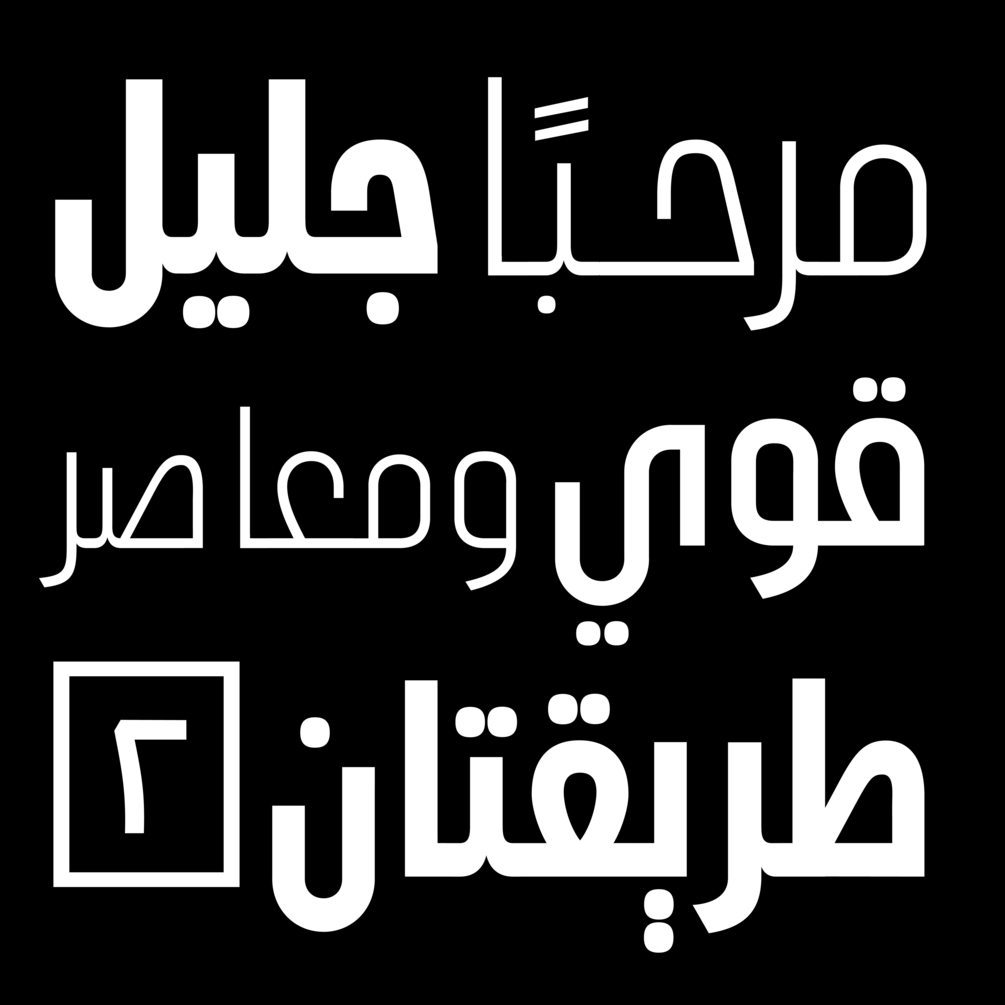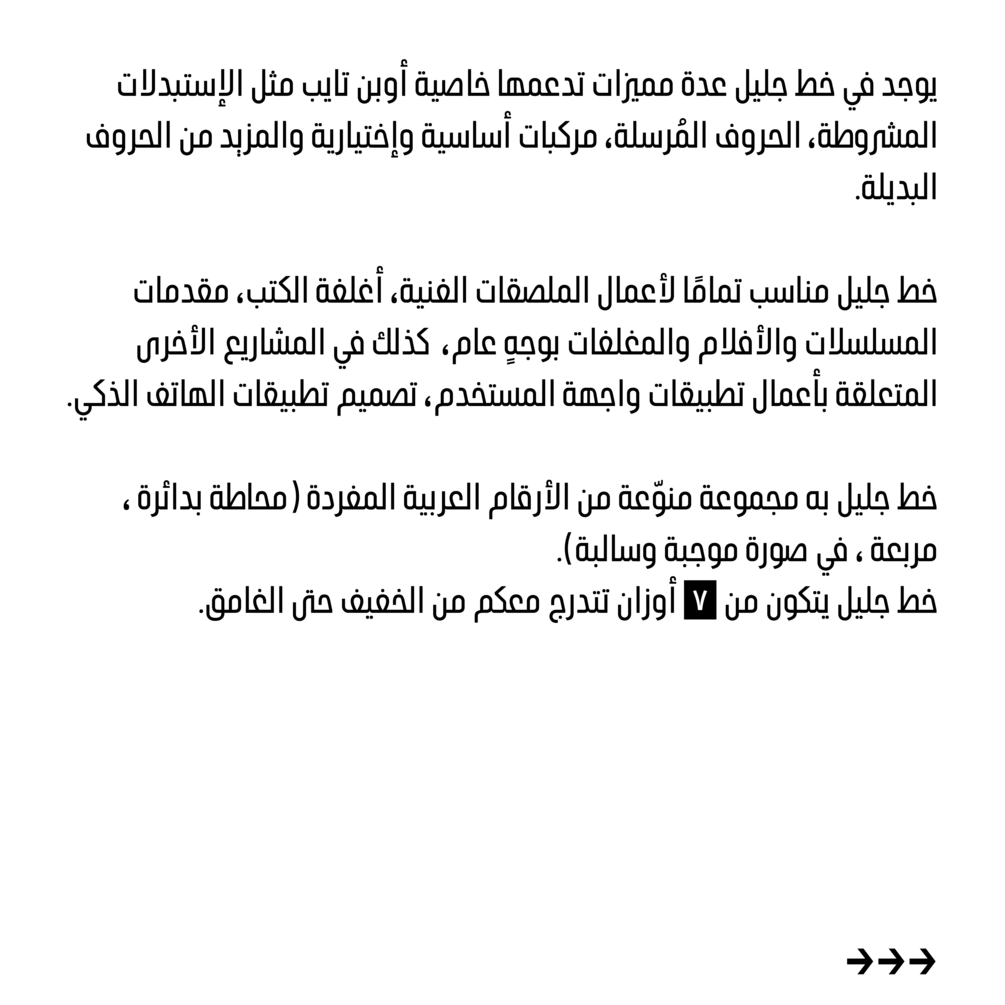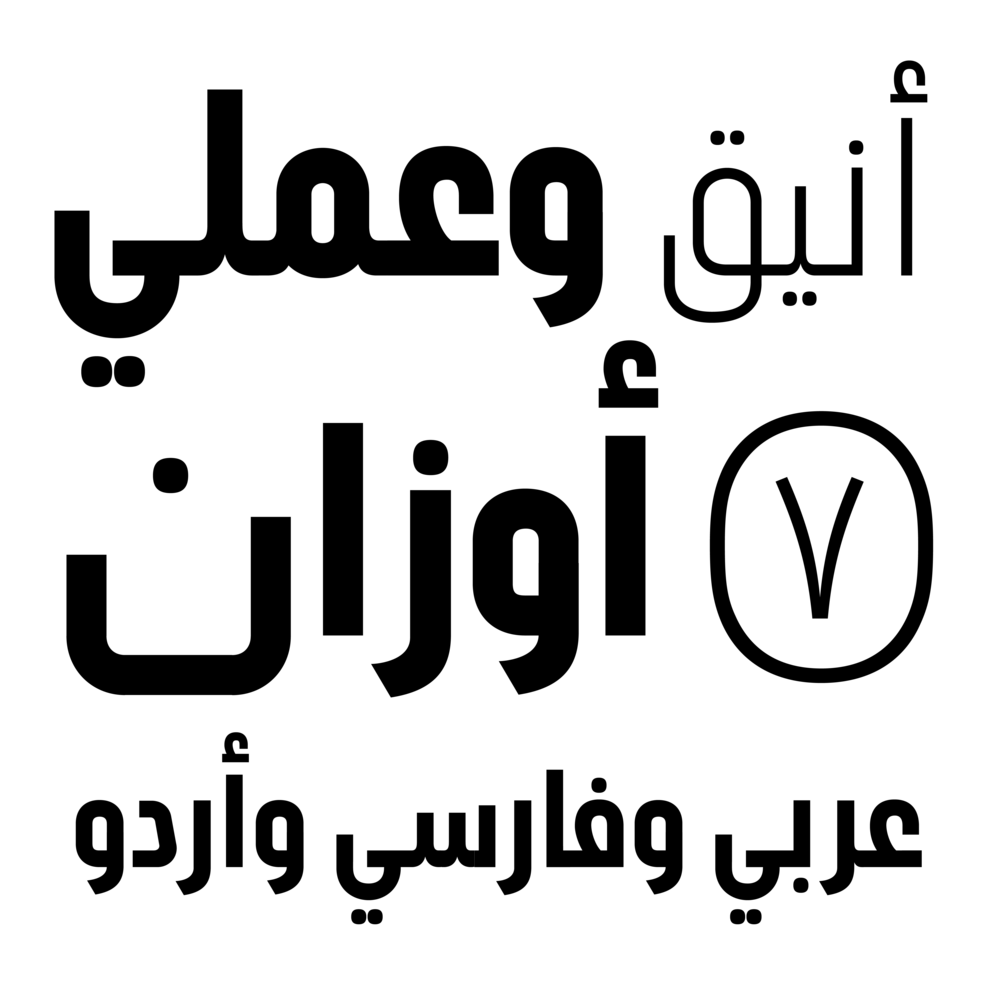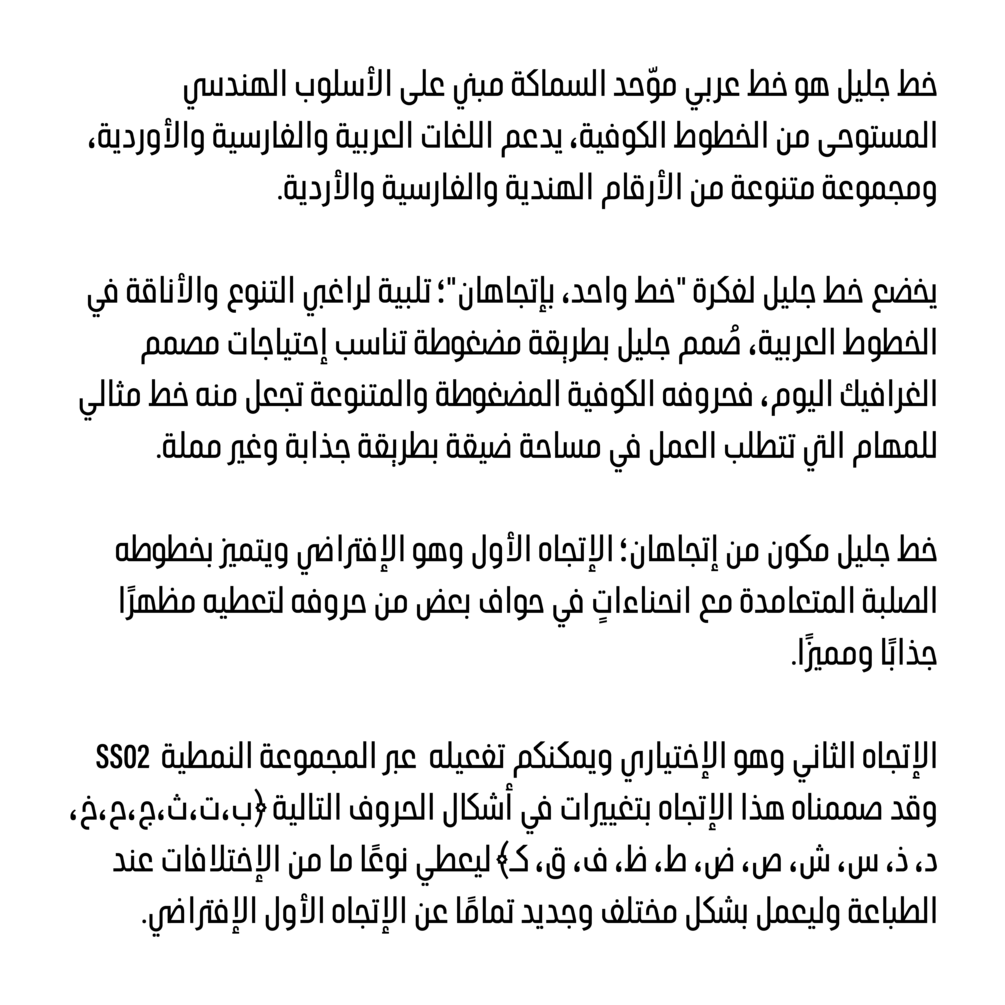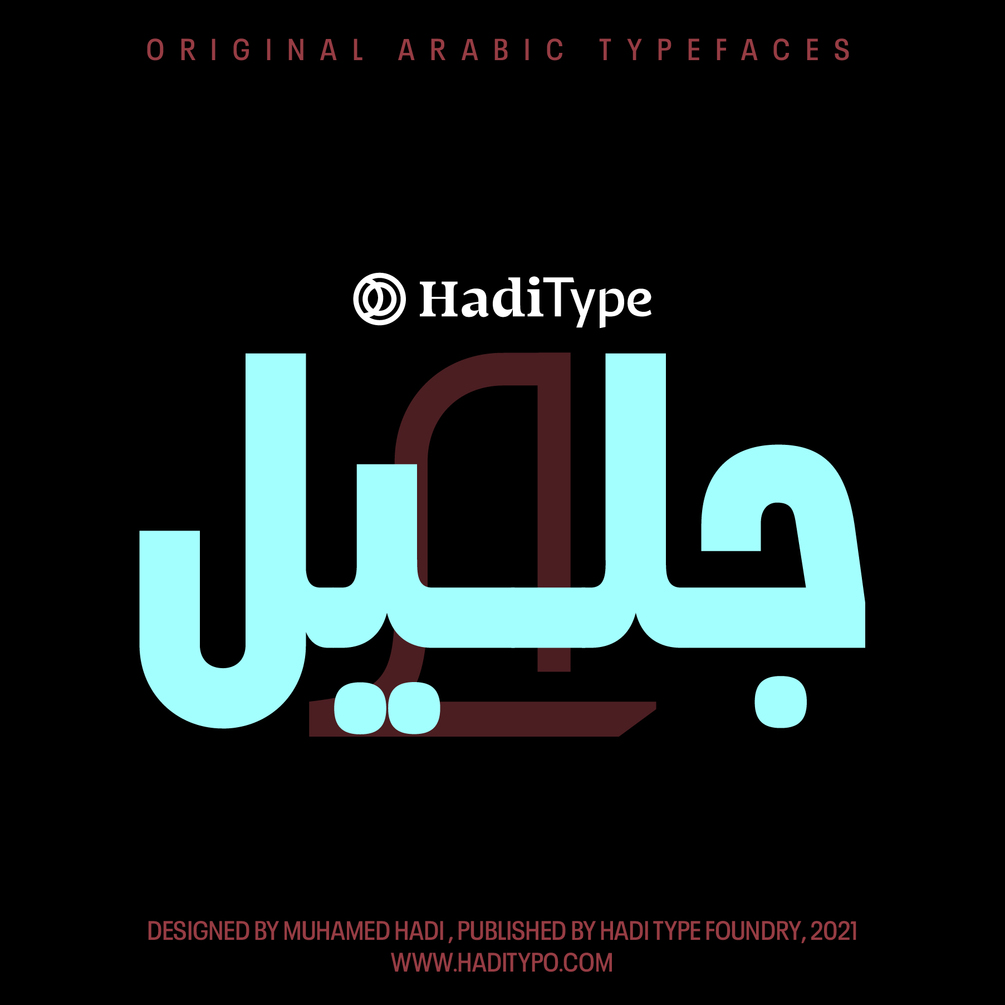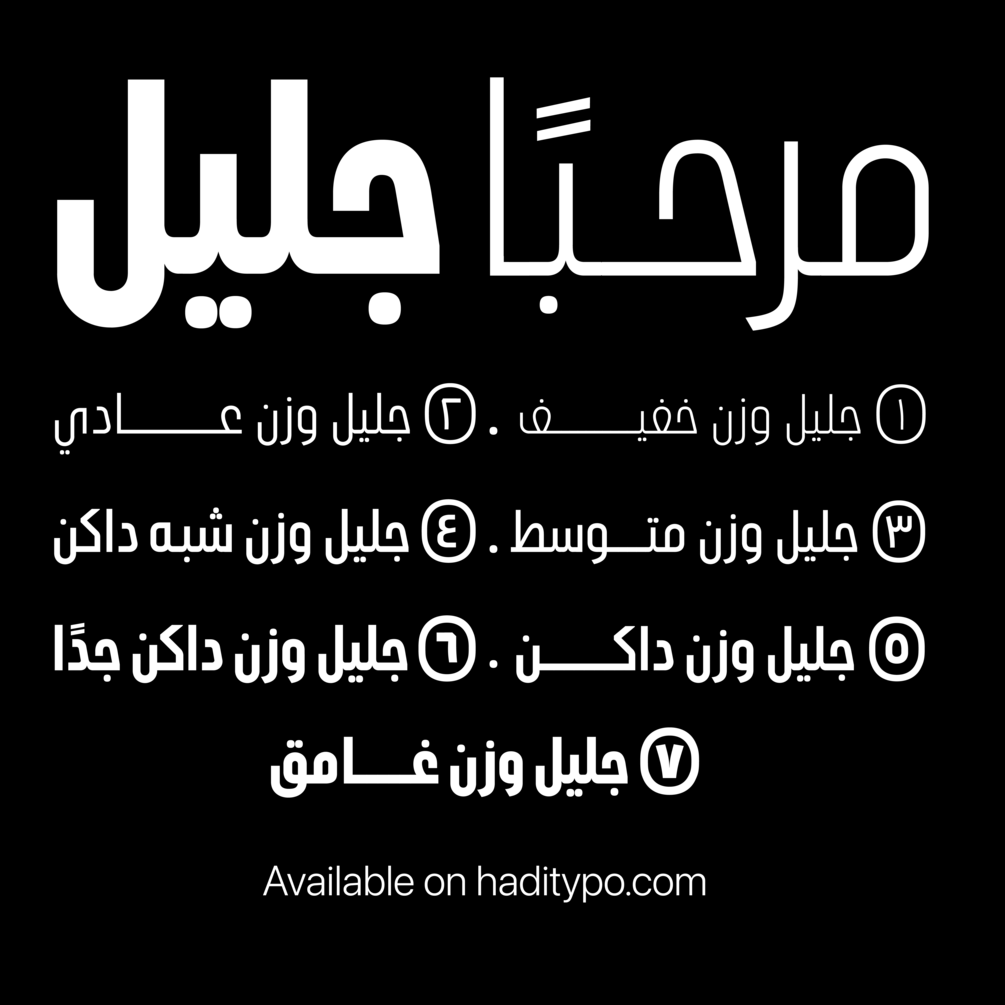
HT Jaleel
HT Jaleel is a family of 7 compact mono-linear typefaces. designed by Muhammed Hadi.
The letterforms are dynamic; typically round shapes appear more compact, as their verticals have been flattened. This ‘straightening out’ gives the text set in the typefaces a streamlined look.
HT Jaleel includes seven font styles. This broad range of weights makes combinations with a strong degree of contrast possible; the lightest and the heaviest styles may be mixed to create a powerful effect in your design. Each font style in HT Jaleel offers full support for conjuncts and ligatures.
SUPPORTED ARABIC LANGUAGES
Arabic, Farsi & Urdu.